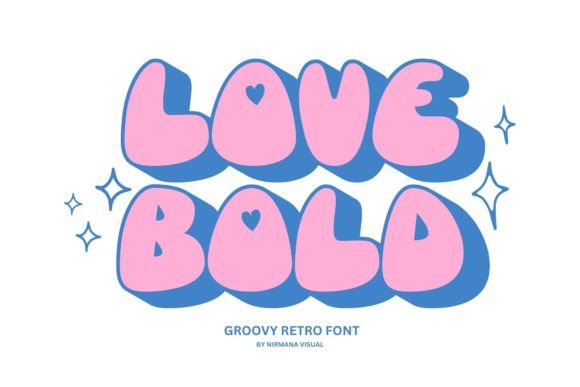
Journey back in time with Love Bold Font, the ultimate retro font that captures the essence of the good old days. Its bold and playful design dances across your screen, evoking a sense of nostalgia and pure joy. Say goodbye to bland, conventional fonts and embrace the captivating charm of Love Bold Font.
This retro gem is perfect for those with a penchant for vintage aesthetics, yearning to add a touch of whimsy to their designs. Whether you're a seasoned graphic designer or a creative enthusiast, Love Bold Font is your passport to a world of endless design possibilities.
With its PUA encoding, unleashing the full potential of this font is a breeze. Effortlessly access a treasure trove of glyphs and ligatures, adding intricate details and a touch of individuality to your creations.
So, dive into the delightful world of Love Bold Font and let your imagination run wild. Craft eye-catching logos that exude a retro vibe, design posters that transport viewers to a bygone era, or create social media graphics that ooze vintage charm.